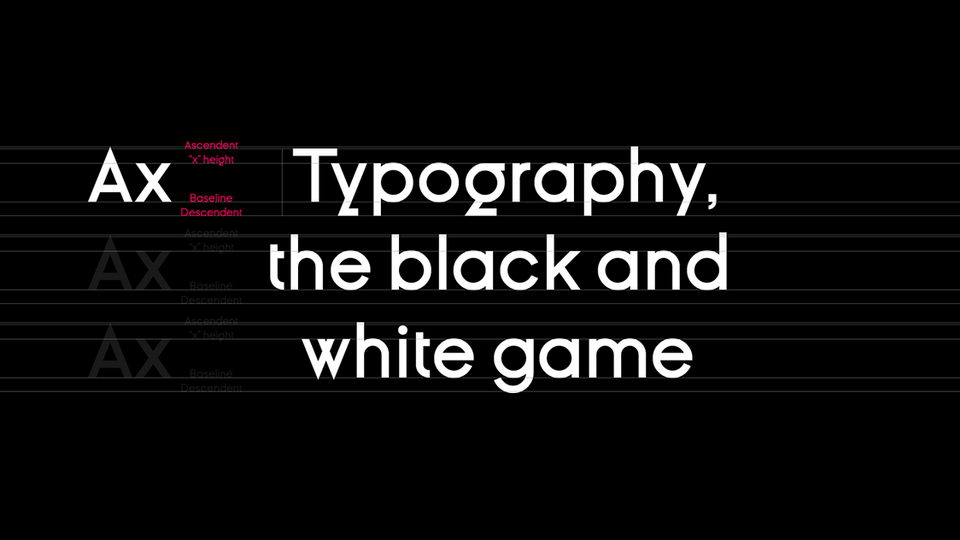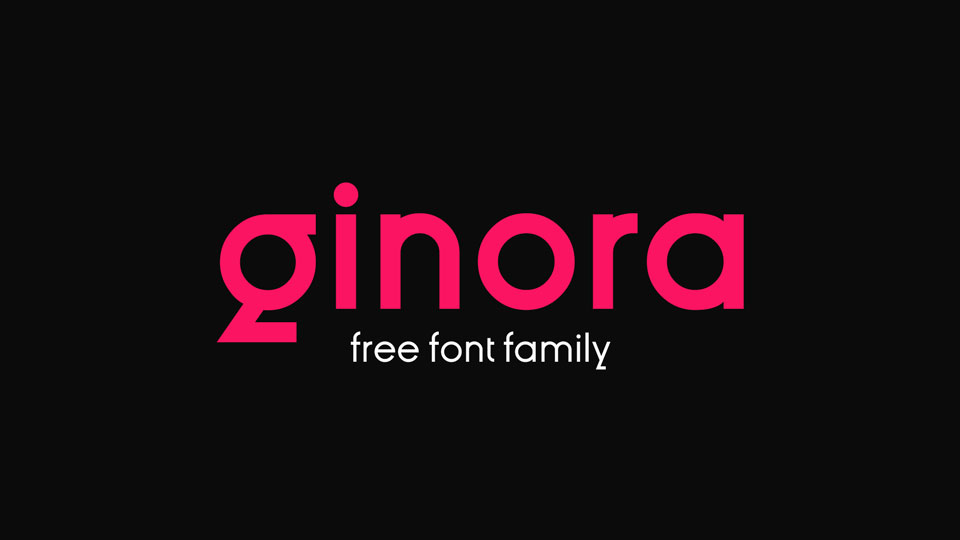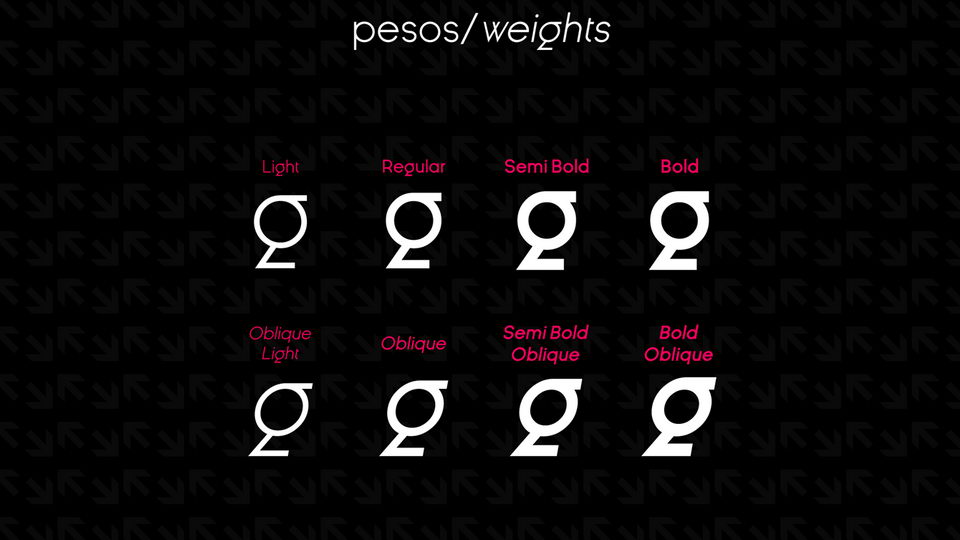
Ginora Sans Typeface
Ginóra is a geometric sans serif typeface for logos and titles with spacious capital characters and completly circles like a O, Q, G, C. The letters in small caps have long ascendent and complete circles. It comes with 8 fonts, including 4 weights from Thin to Bold and theit Italics, contains full set of uppercase and lowercase letters, numerals and symbols, multilingual accents.
Designed by: Matheus Gomes